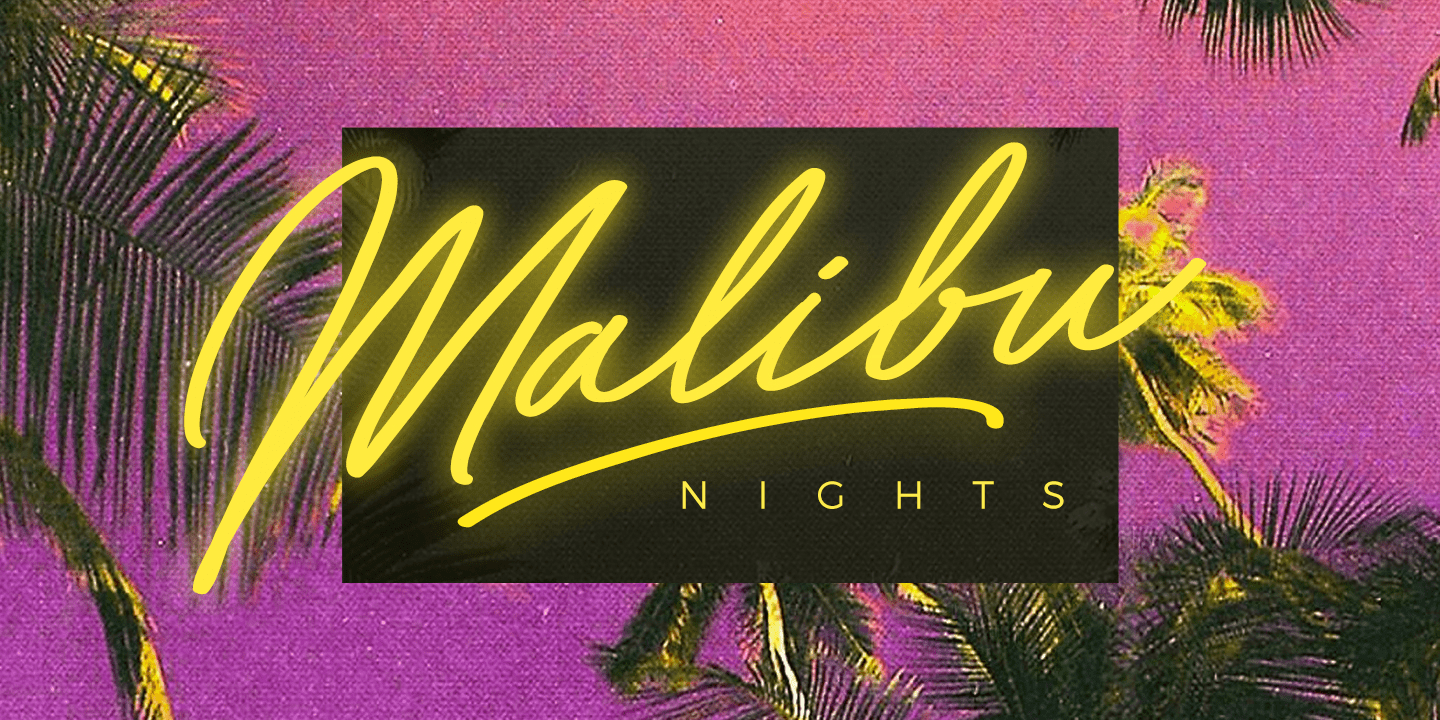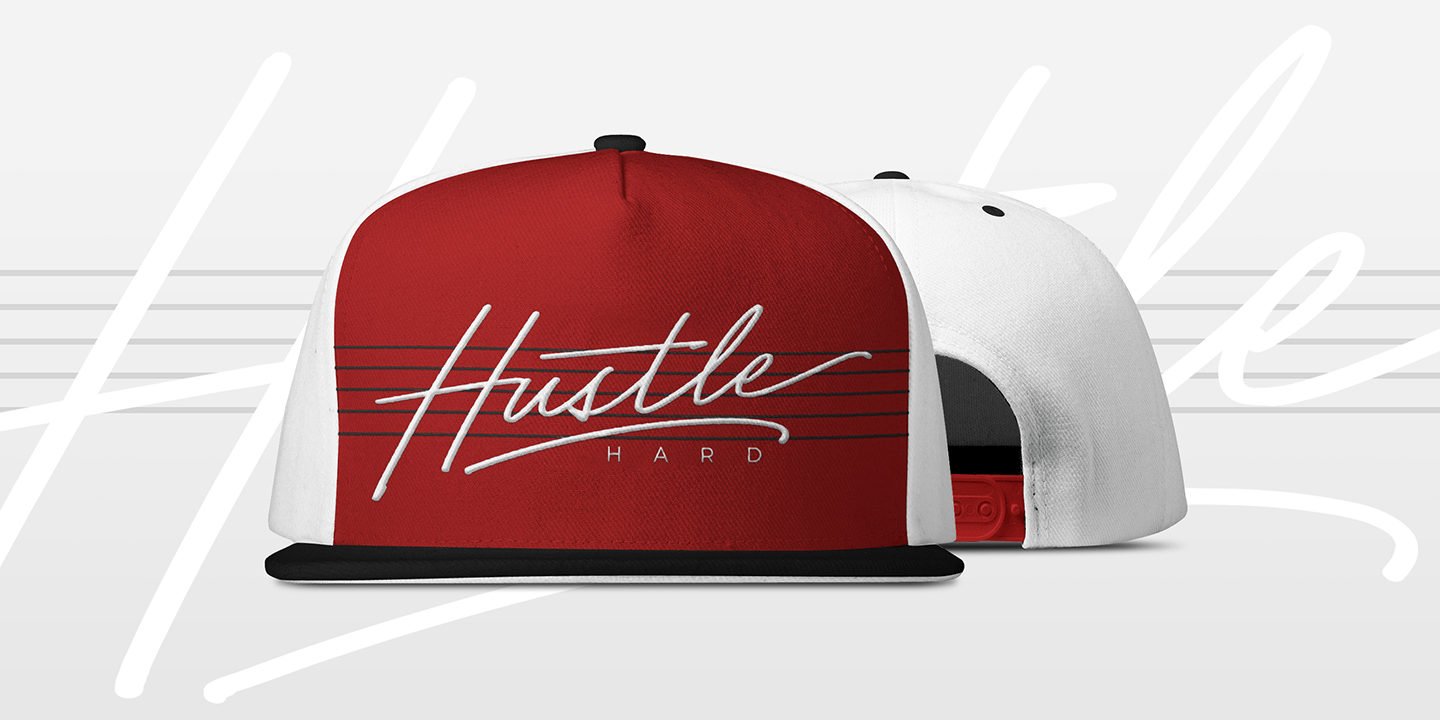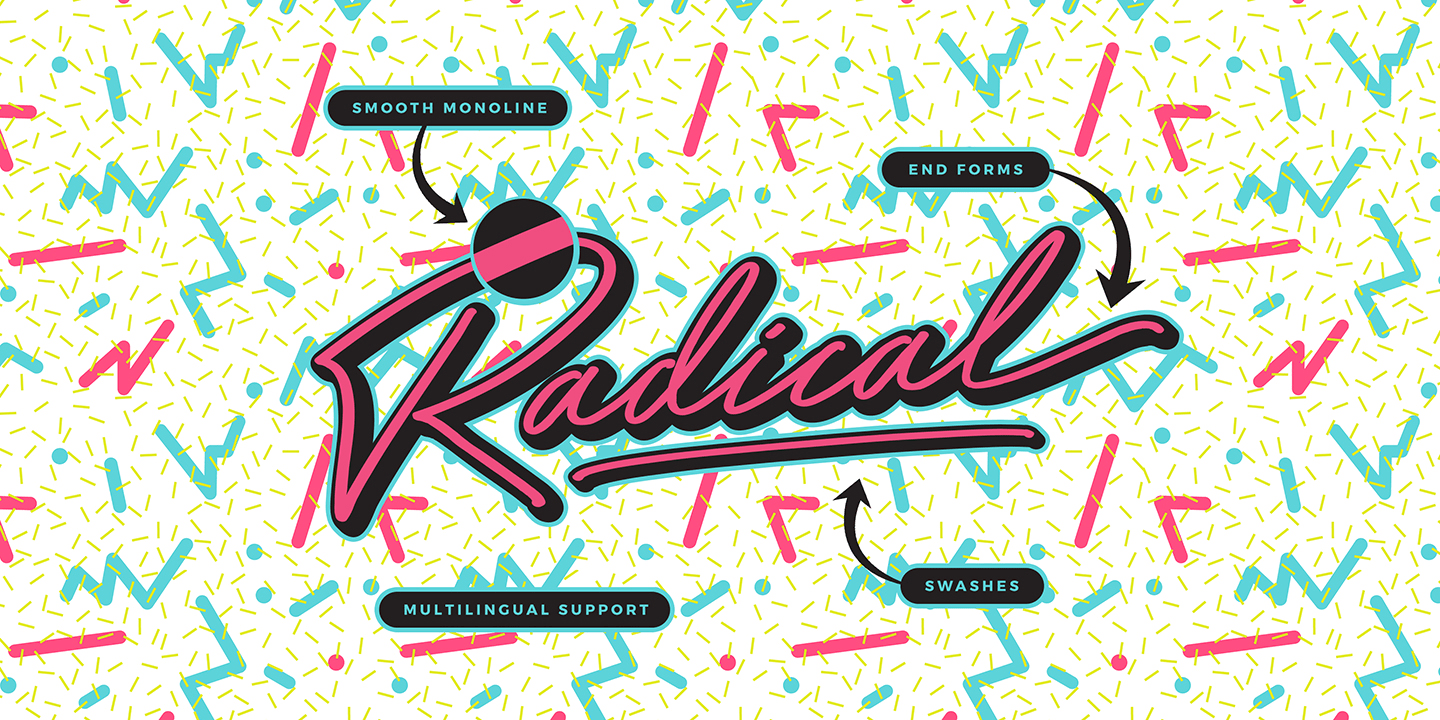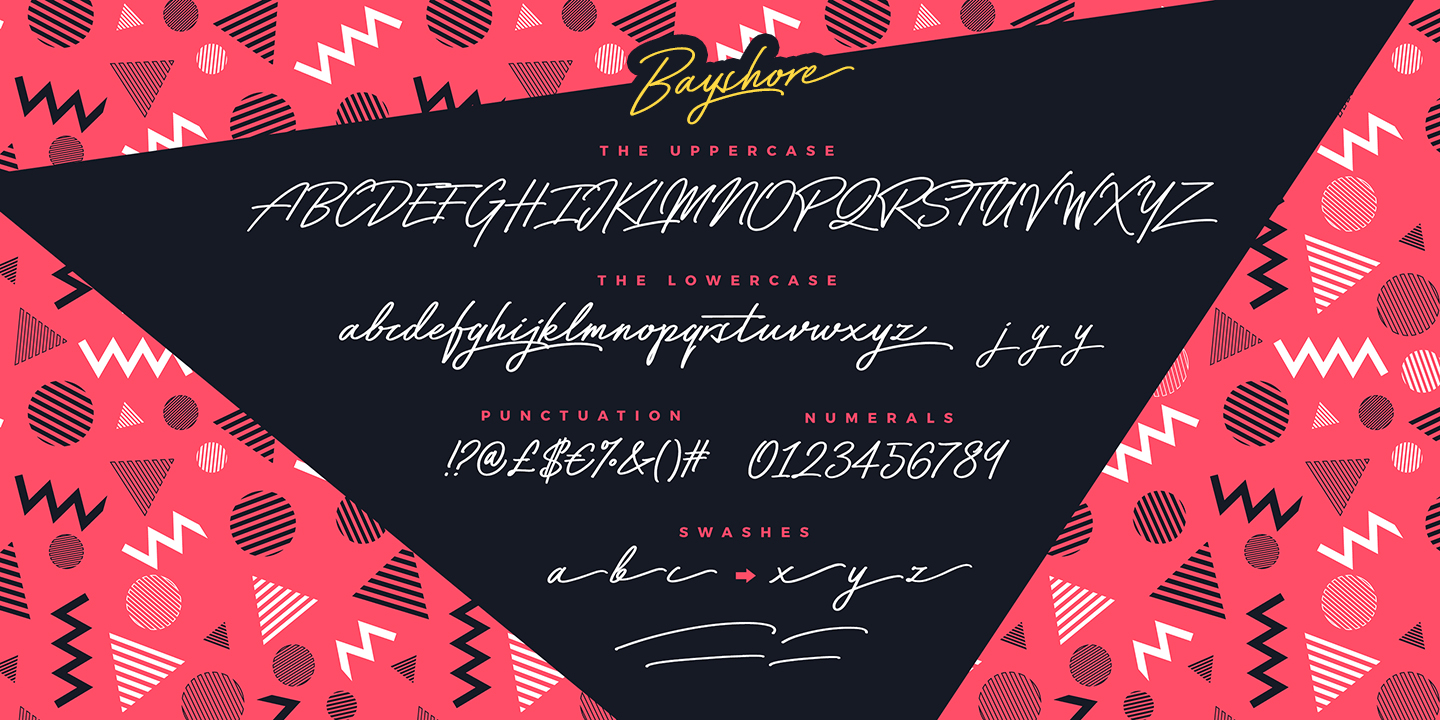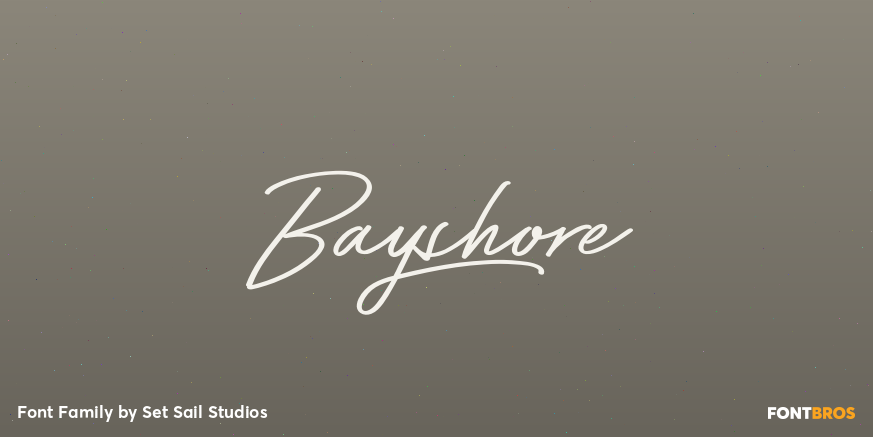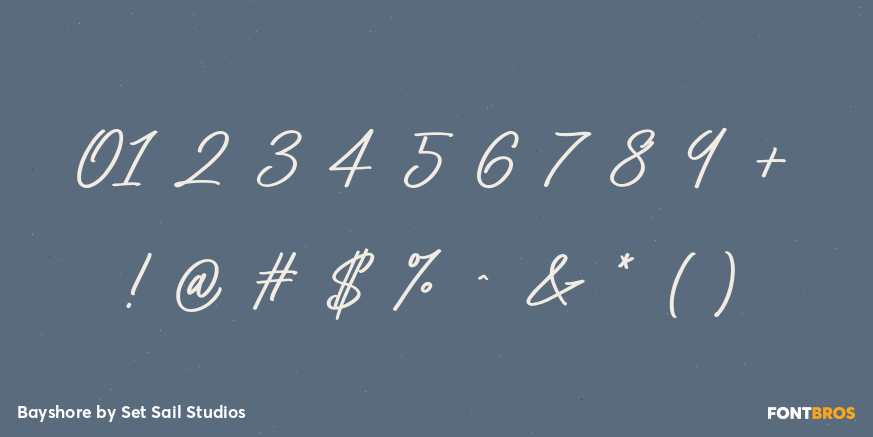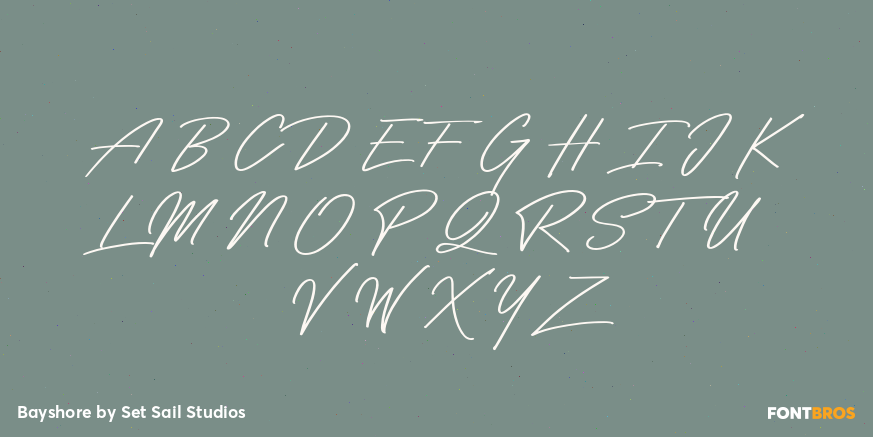
Bayshore
Perm your hair, squeeze into your lycra, and retro-fy your text with Bayshore! A totally tubular mono-line script font straight out of the 80's.
This hand-drawn font is perfect for creating slick & stylish lettering. Whether it’s for logos, product packaging or merchandise, Bayshore is guaranteed to give your text an unmistakeable retro quality.
Bayshore comes as a single font file with added features allowing you to customise your text;
End Swashes • Each lower-case character has a separate ‘end-swash’ version, use this for the last letter in a word to give it a custom-feel styling. These end-swashes are accessible via any software with Opentype capabilities, simply by turning on ‘Stylistic Alternates’.
Underline Swashes • Four swashes of varying lengths are also available, simply by typing any of the square brackets [ ] { }. These can be used to underline your text and give it a real eye-catching quality.